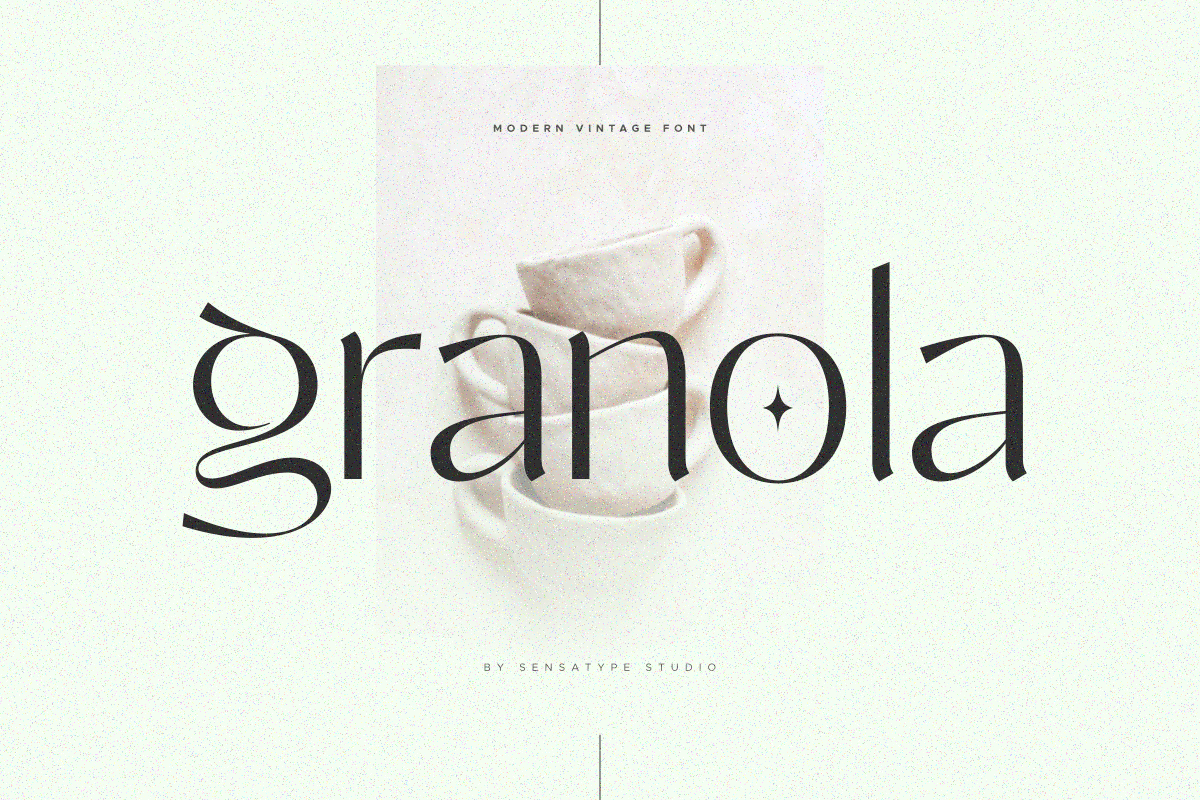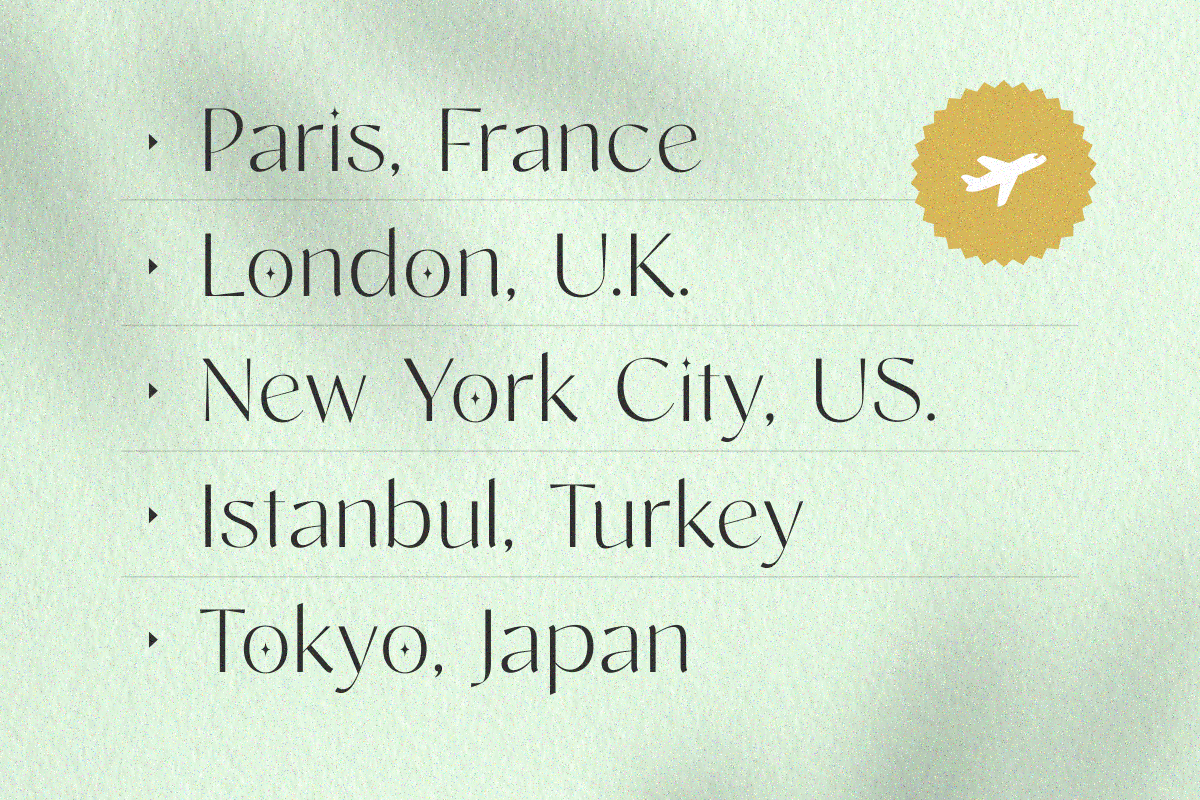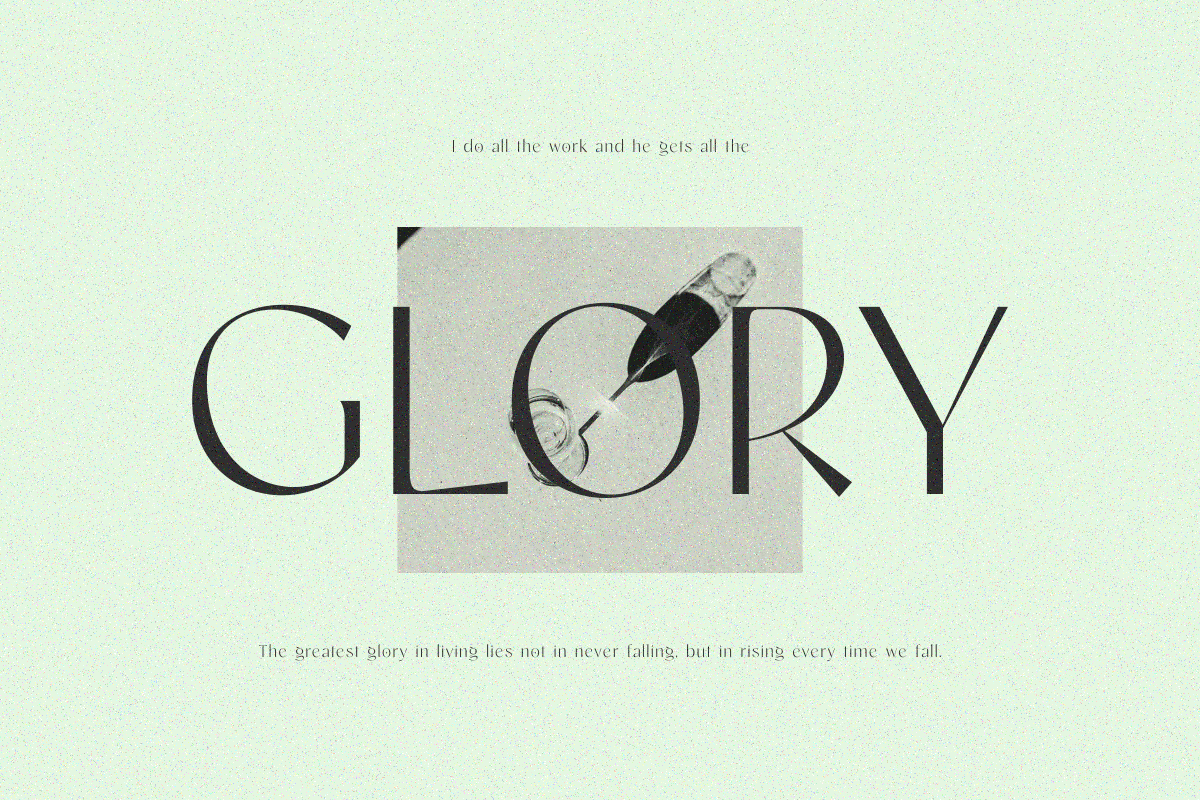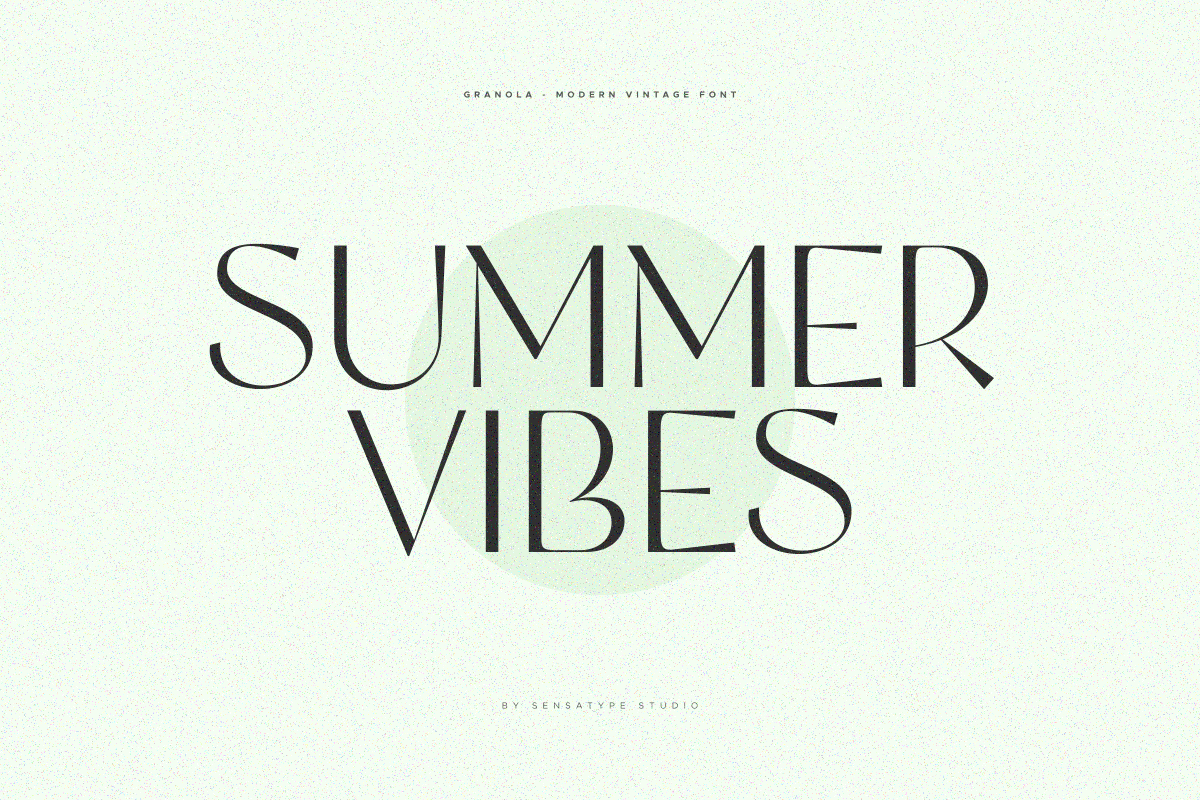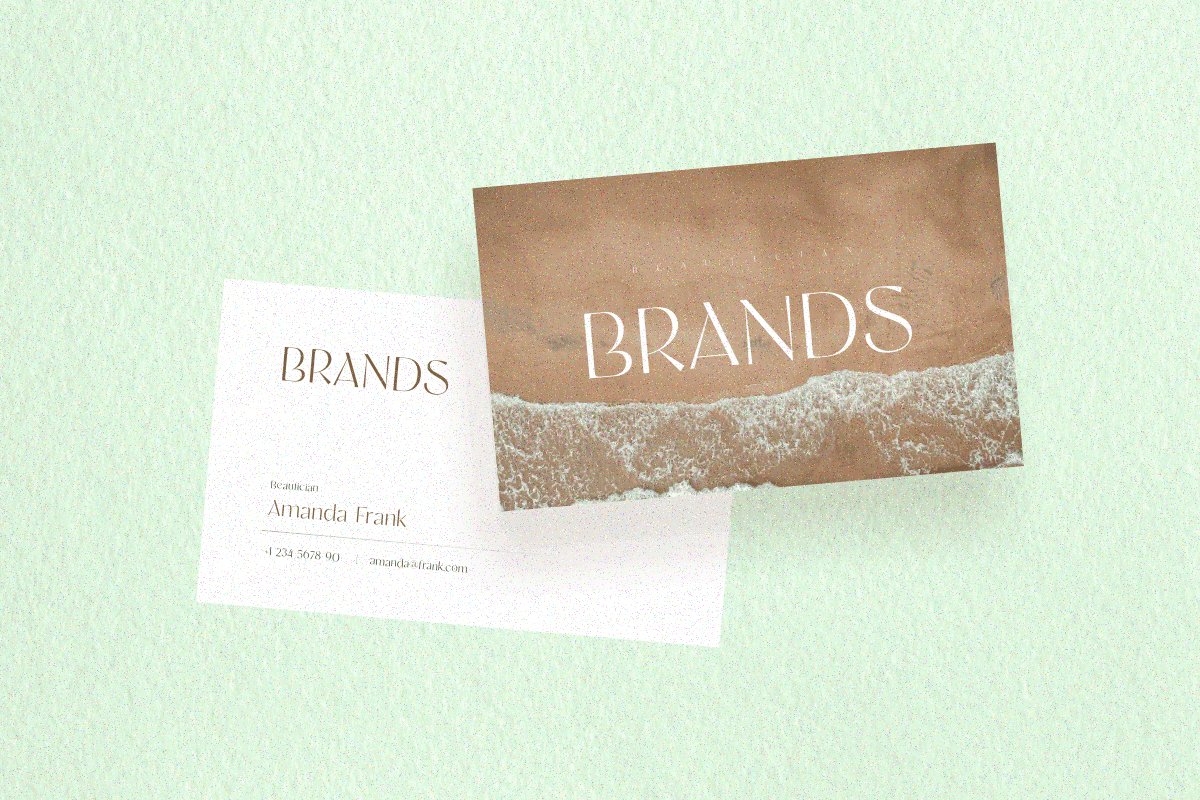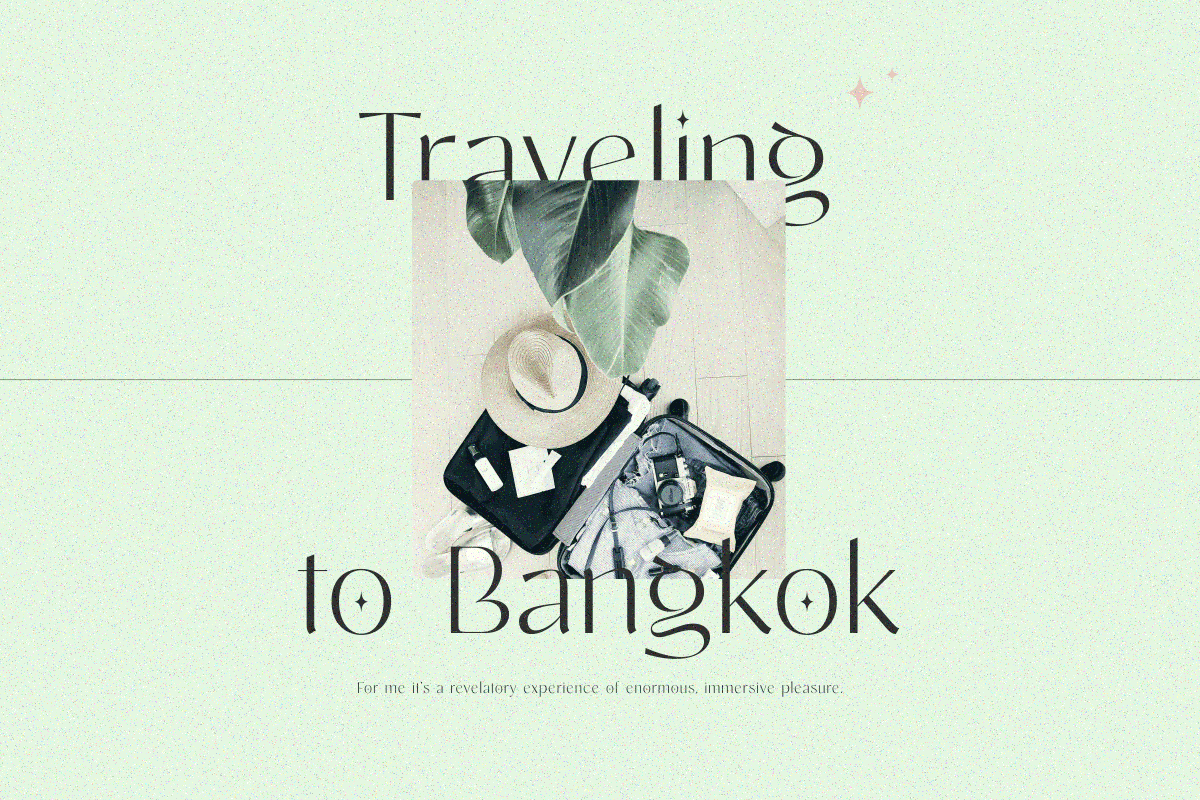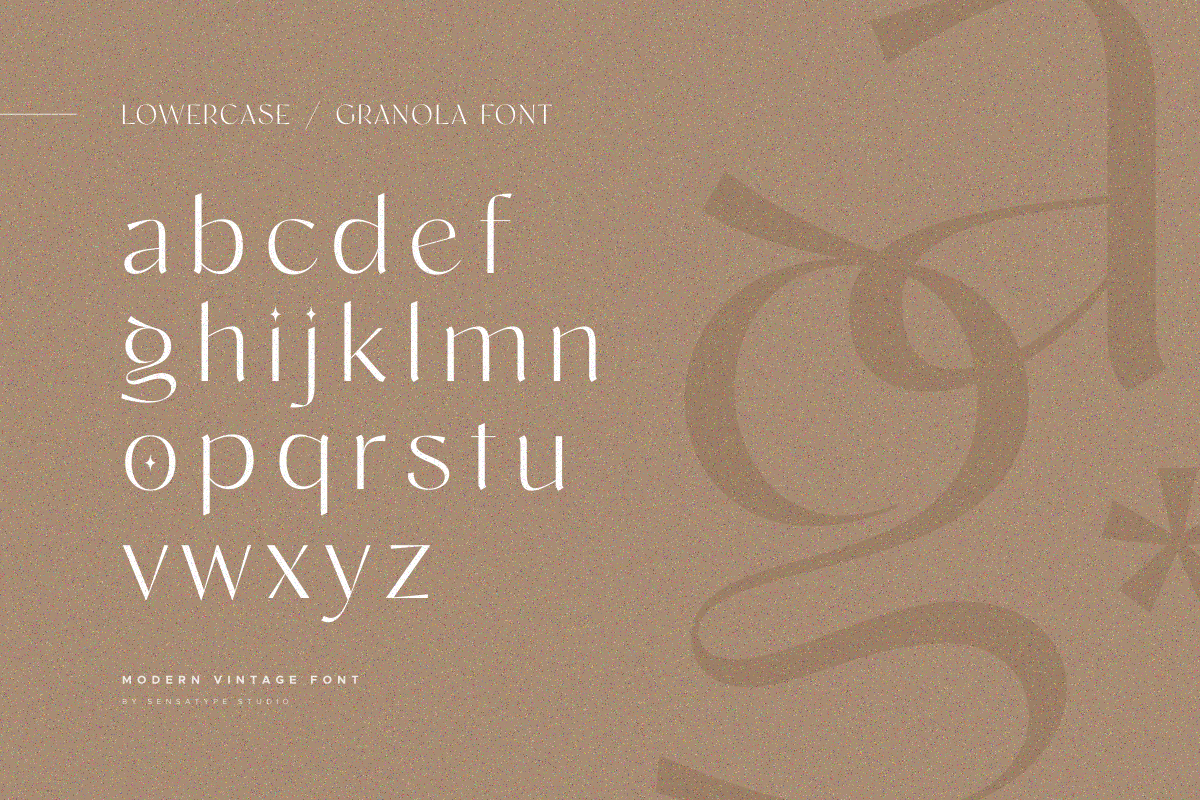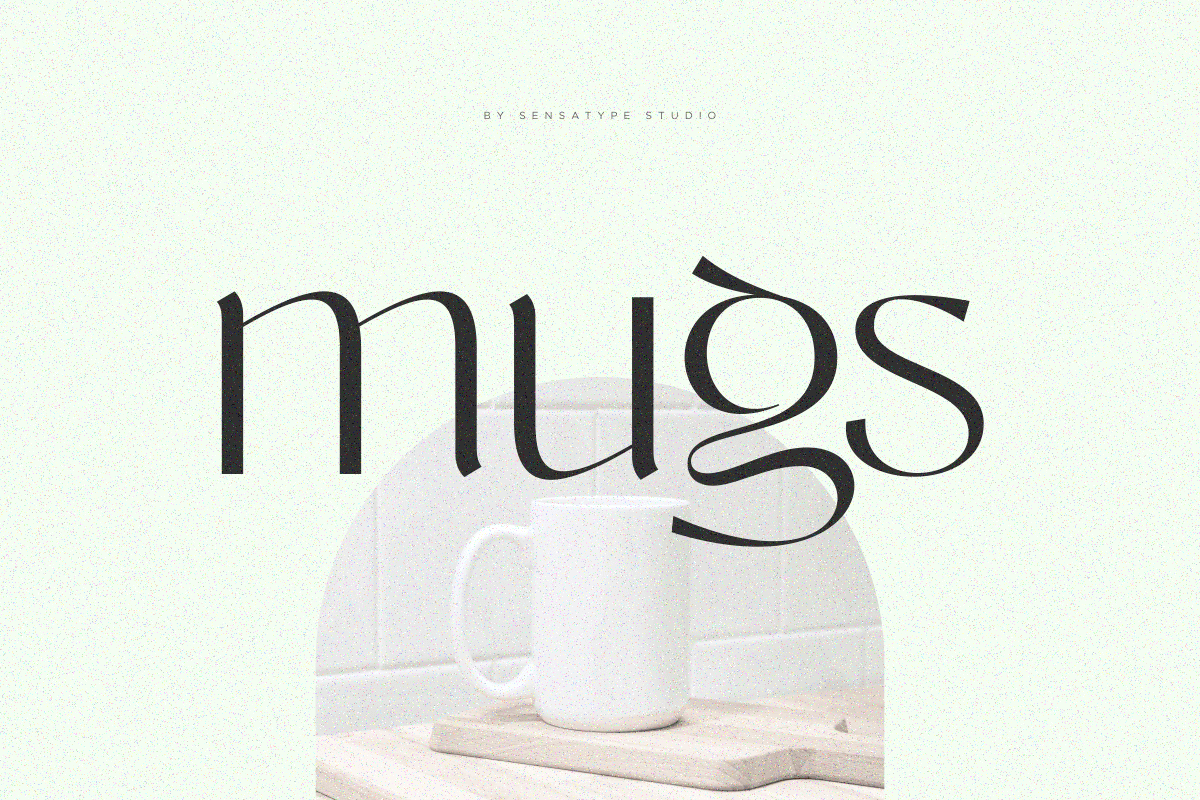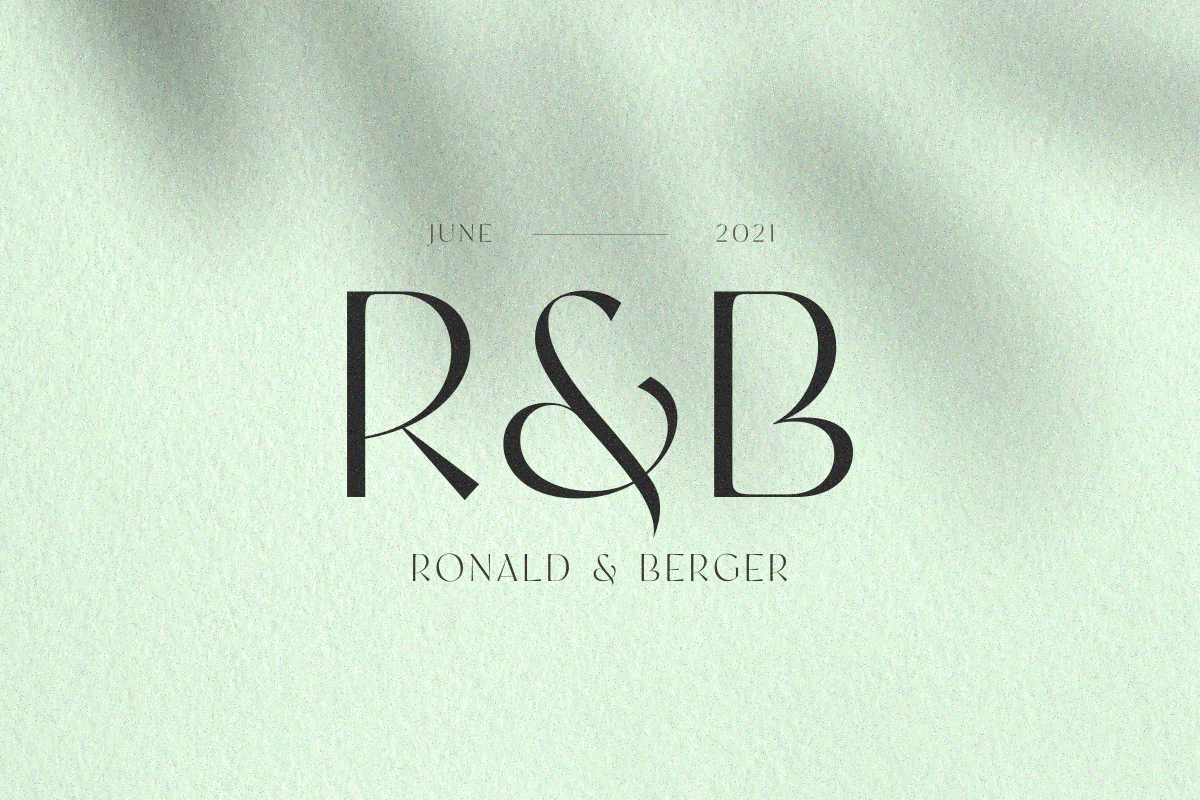
granola - unique modern vintage font
granola font is a collections of a modern with cultural display font, give you unique looks for any branding or logo design needs. granola font is ready to use on Magazine, Social Media, Poster, Business Card, and Many more that needs Unique touches.